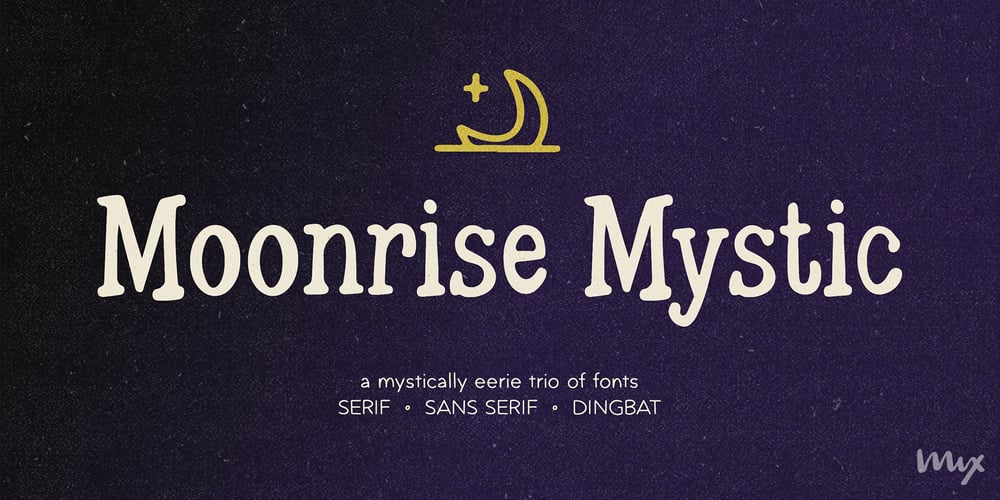
Mix Moonrise Mystic Font Family was designed by Mikko Sumulong and published by Mix Fonts. Mix Moonrise Mystic contains 3 styles and family package options. Embark on a mystical journey with MOONRISE MYSTIC, a captivating font family inspired by the arcane and mysterious. This enchanting collection features three distinct styles: Regular (a Serif), Sans Serif, and a whimsical Dingbat. Each font exudes an eerie allure reminiscent of tarot readings, Halloween nights, and cosmic wonders, evoking the spirit of alchemy and ancient spellbooks.Perfect for projects, brands, or themes centered around tarot, Halloween, cosmic phenomena, alchemy, and all things witchy, MOONRISE MYSTIC is a must-have for designers, small businesses, bloggers, vloggers, students, and mystic enthusiasts alike.With multilingual support for over a hundred languages, MOONRISE MYSTIC ensures that your message can be understood across diverse audiences. Its mystical vibe and versatility, combined with the inclusion of doodle dingbats, offer endless creative possibilities. Whether for print or digital projects, MOONRISE MYSTIC shines with its hand-lettered charm and clarity as a display font.MOONRISE MYSTIC is compatible with most platforms, making it accessible to all. Embrace the magic and unlock the secrets of the cosmos with MOONRISE MYSTIC – where every stroke tells a tale of ancient wisdom and mystic allure.MOONRISE MYSTIC comes with the following glyphs: ABCDEFGHIJKLMNOPQRSTUVWXYZ abcdefghijklmnopqrstuvwxyz 0123456789 !@#$%^&*()`~♥❤✿•· .,:;’”|/?{}[]“”‘’-–—_÷×+−±≈=≠≥≤ …‚„©®™‹›«»°¹²³ªº¡¿₱¢€£¥½¼¾¶§№† ÁÀÂÃÄȦÅĂĀĄÆĆĈČĊÇÐĐĎÉÈÊĚËĖĒĘḞǴĜǦĠḠ ĤȞḦḢIÍÌÎÏĪĮĴḰǨĹĽŁḾṀŃŇÑÓÒÔÕÖŌŐØŒṔṖŔŘṘ ŚŜŠŞȘŤṪŢȚÚÙÛŨÜŮŬŪŰŲẂẀŴẄẆÝŶŸŹẐŽŻƵÞẞ áàâãäȧåăāąæćĉčċçðđďéèêěëėēęḟǵĝǧġḡ ĥȟḧḣıíìîïīįĵḱǩĺľłḿṁńňñóòôõöōőøœṕṗŕřṙ śŝšşșťṫţțúùûũüůŭūűųẃẁŵẅẇýŷÿźẑžżƶþß MOONRISE MYSTIC SANS comes with the following glyphs: ABCDEFGHIJKLMNOPQRSTUVWXYZ abcdefghijklmnopqrstuvwxyz 0123456789 !@#$%^&*()`~♥❤✿•· .,:;’”|/?{}[]“”‘’-–—_÷×+−±≈=≠≥≤ ©®™‹›«»°¹²³₱¢€£¥¶§№† MOONRISE MYSTIC DINGBAT comes with the following glyphs: ABCDEFGHIJKLMNOPQRSTUVWXYZ abcdefghijklmnopqrstuvwxyz 0123456789